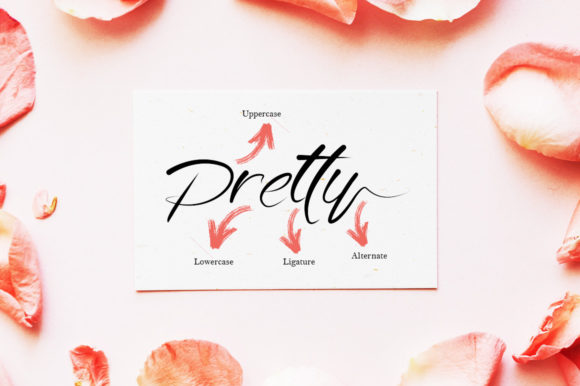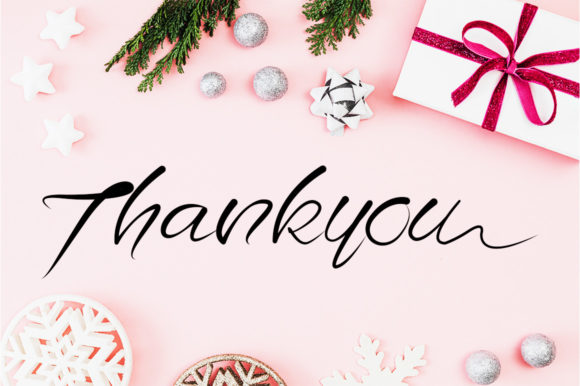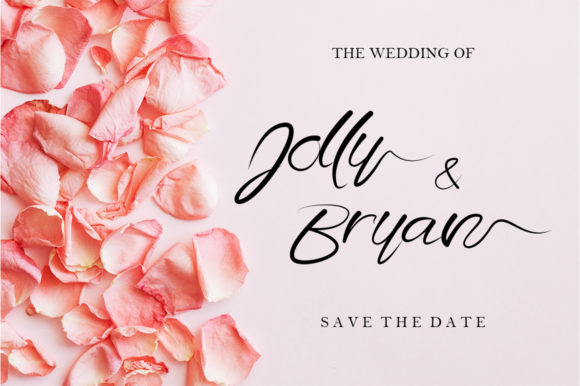
Introduction to Pretty Heart Font
As a designer, you’ve probably found yourself in a moment where you need to convey a sense of love, romance, or celebration in your creative project. Whether it’s a wedding invitation, a Valentine’s Day card, or a social media post, you want your message to be visually stunning and leave a lasting impression. That’s where Pretty Heart Font comes in – a stylish script font that’s perfect for adding a touch of elegance and whimsy to your design.
This beautifully crafted font is a must-have for any designer looking to elevate their work with a high-quality design resource. With its romantic heart style and transparent background, Pretty Heart Font is a versatile tool that can be used for a wide range of creative projects, from advertising and logo elements to wedding decorations and more.
Key Features of Pretty Heart Font
- High-quality design resource ideal for creative projects, including wedding invitations, greeting cards, and other romantic themes.
- Unique, hand-drawn design featuring a heart-shaped character with a transparent background, perfect for adding a touch of elegance to any design.
- Supports a wide range of languages and characters, making it a versatile font for various design applications.
Honest Review: Pretty Heart Font
I recently had the chance to work with the Pretty Heart Font, and I must say it’s been a delightful addition to my design projects. ✨ The font’s high quality and elegant design make it perfect for creative projects that require a touch of romance or whimsy.
One of the standout features of this font is its transparent background, which makes it incredibly versatile and easy to use. Whether you’re working on a design for a wedding invitation or a Valentine’s Day card, this font is sure to impress.
Here are some of the things that work well with the Pretty Heart Font:
- Not as many characters or symbols available as I would have liked
- Can be a bit difficult to read in smaller font sizes
Overall, I’m really impressed with the Pretty Heart Font, and I think it’s a great addition to any designer’s toolkit. While it may have a few limitations, its unique design and high-quality look make it well worth the download.
To get the most out of the Pretty Heart Font, use it on a transparent background to create a sense of depth and dimension. Experiment with different font sizes, colors, and styles to create unique and creative designs. You can also combine the Pretty Heart Font with other design elements, such as graphics or images, to create visually appealing and engaging designs.
The Pretty Heart Font is perfect for designing romantic or whimsical designs, such as wedding invitations, valentines, or other creative projects. You can also use the Pretty Heart Font to add a touch of personality and flair to your designs, making them stand out from the crowd.